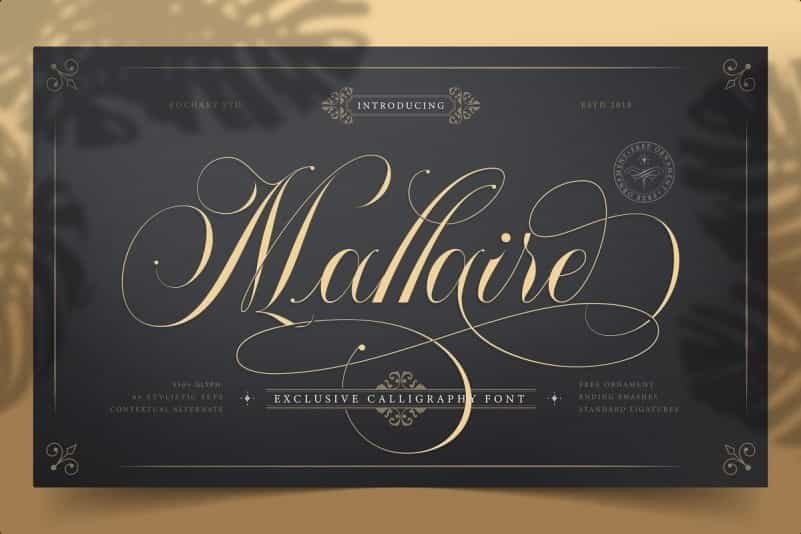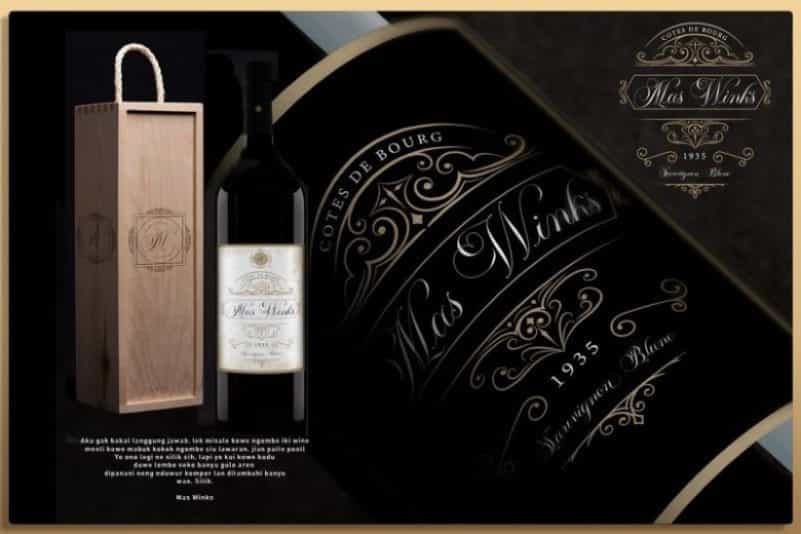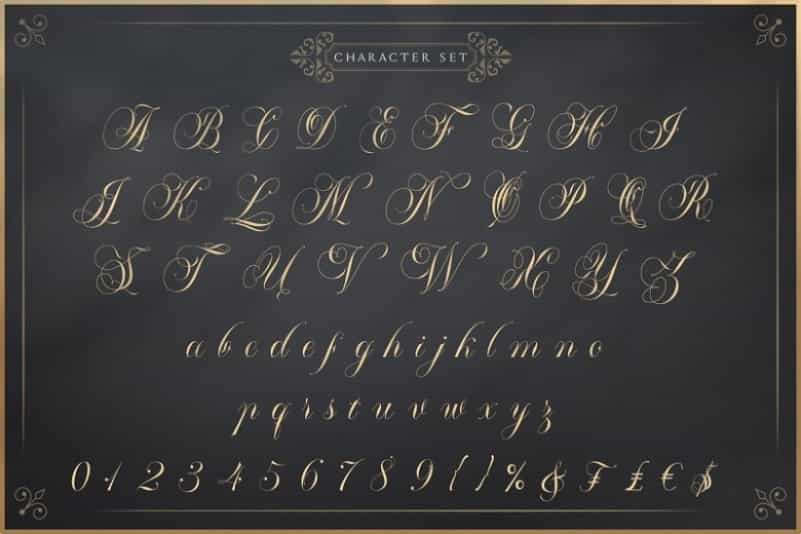
The Mallaire is a calligraphy font with classic style, it has a touch of elegance and is inspired by the handwriting of ancient manuscripts. Specially designed to blend together in harmony it is suitable for wedding correspondence, book covers, greeting cards and business cards. Also ideal for logos, branding, certificates of achievement and any design work that calls for a classic, formal or luxurious look.